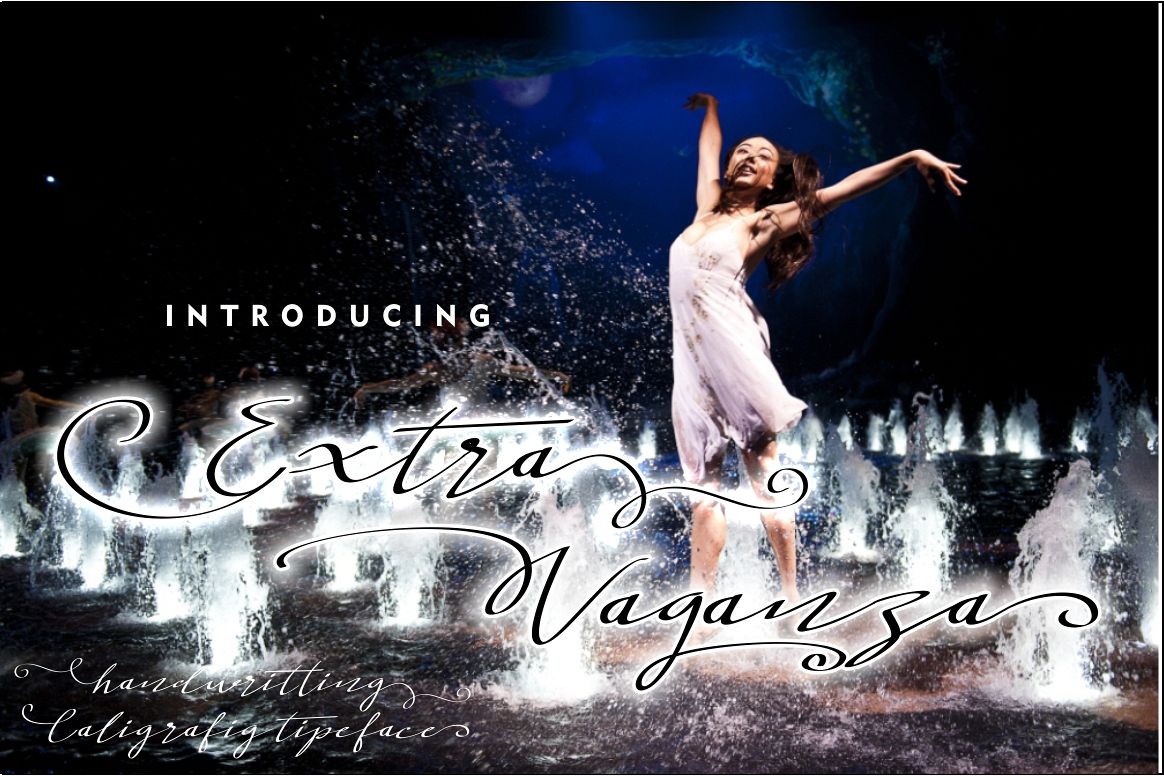
Extra Vaganza
Introducing Extra Vaganza Script!
Extra Vaganza This script is perfect for cards, prints, invitations, arrange illustration and decoration. beautiful for logotype, header website, fashion design, wedding card design and more. Extra Vaganza comes with an elegant style. use the beautiful ligatures, alternates and swashes. It contains a set of lowercase and capital letters, a large number of punctuation, numbers, and multilingual support..